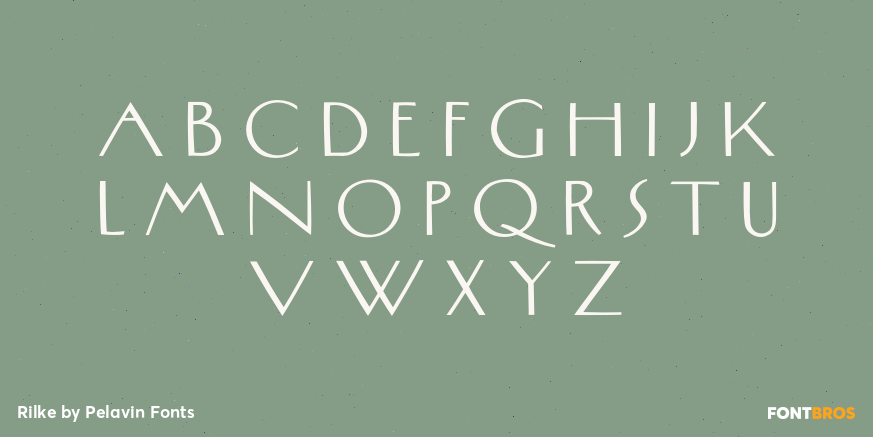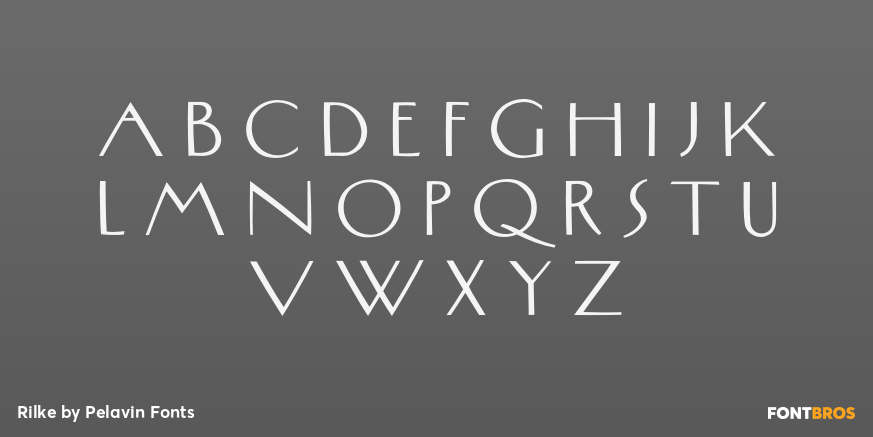
Rilke
Font Family by Pelavin Fonts
Rilke is an adaptation of the lettering used by Gustav Klimt on his poster for the 1st Vienna Secession exhibition in 1898 and is named for Klimt's contemporary the poet Rainer Maria Rilke. The Vienna Secession was a group of artists who worked in a variety of styles under the banner of the phrase 'to every age its art and to art its freedom.? Their goal was to create a new style that was not based upon any historical influence (yeah, like that's ever going to happen).
Its subtle curving strokes and the idiosyncratic set of the various characters create an elegant lightness which lends itself well to poetry, inscription and titling.